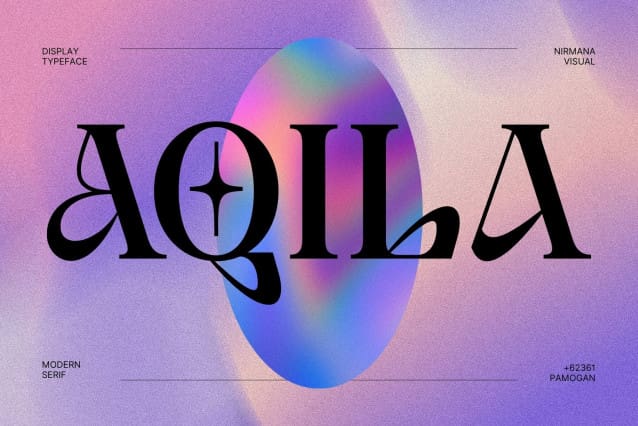
Aqila Font
Aqila Font: brings beautiful typographic harmony to a variety of design projects, including logos & branding, social media posts, advertising & product design.